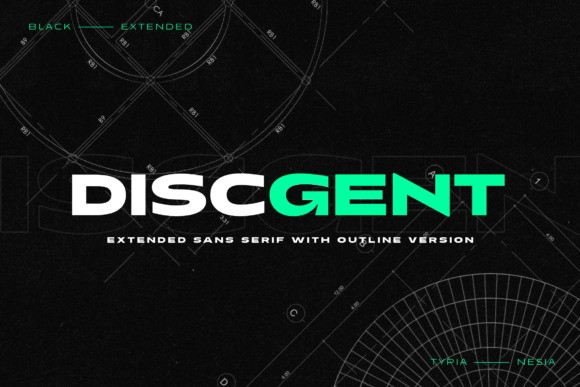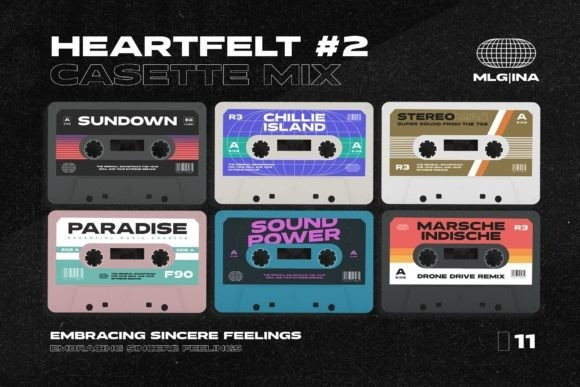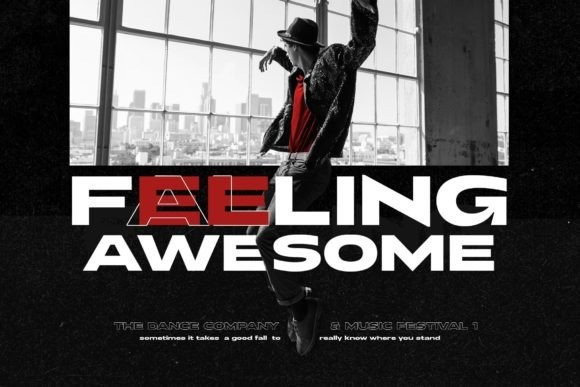
Discgent Font
Discgent is a robust font designed to draw attention and highlight any project that requires a bold feel. It looks powerful and is created to add a vibrant touch to your sport-inspired designs. Suitable for sports design, team, jersey, league, movie, documenter, film, logo, poster, game, book cover, headlines, title, and many more projects.